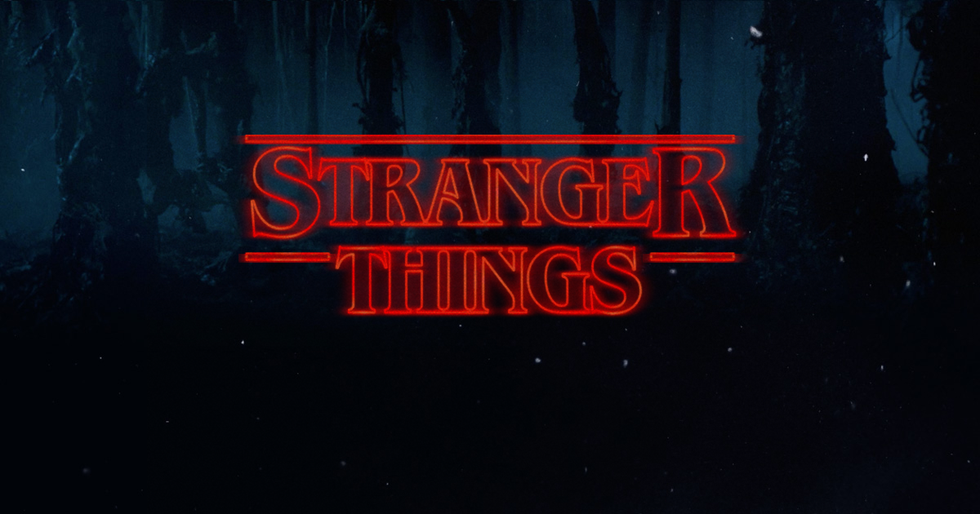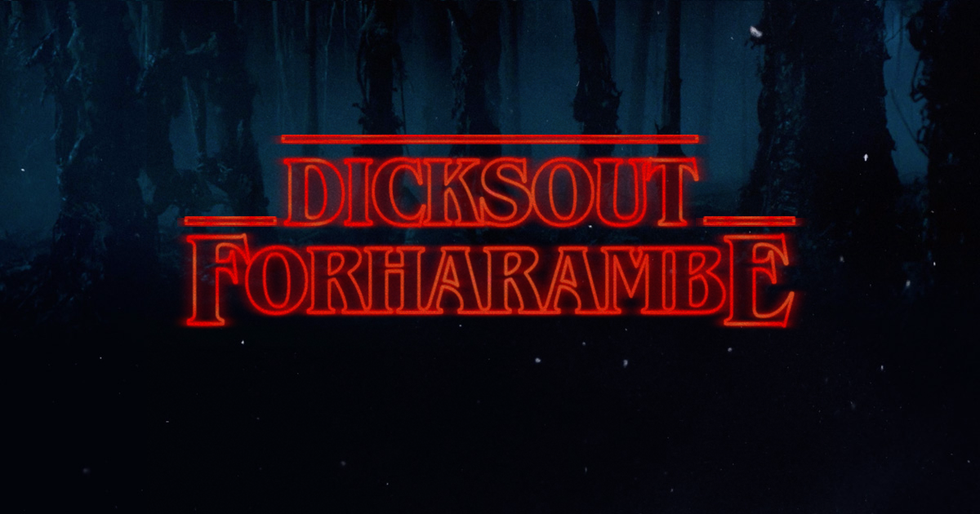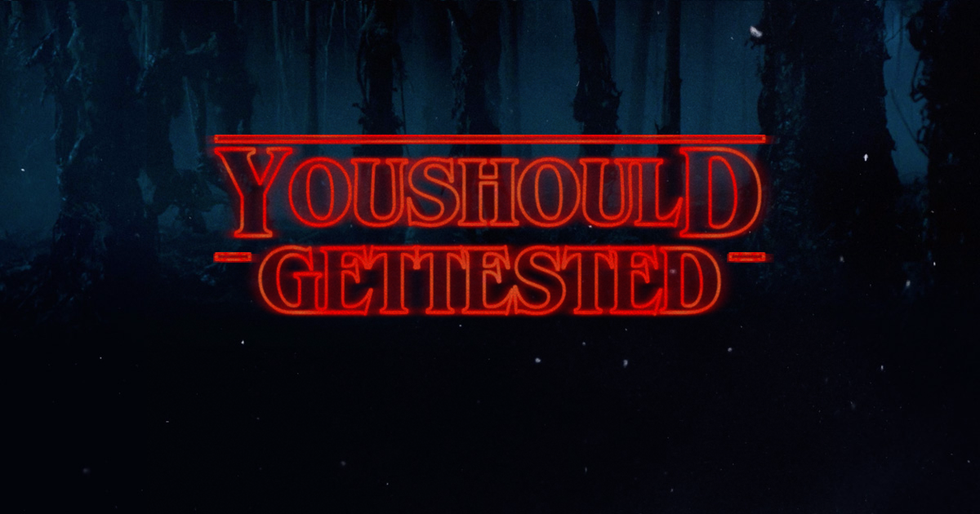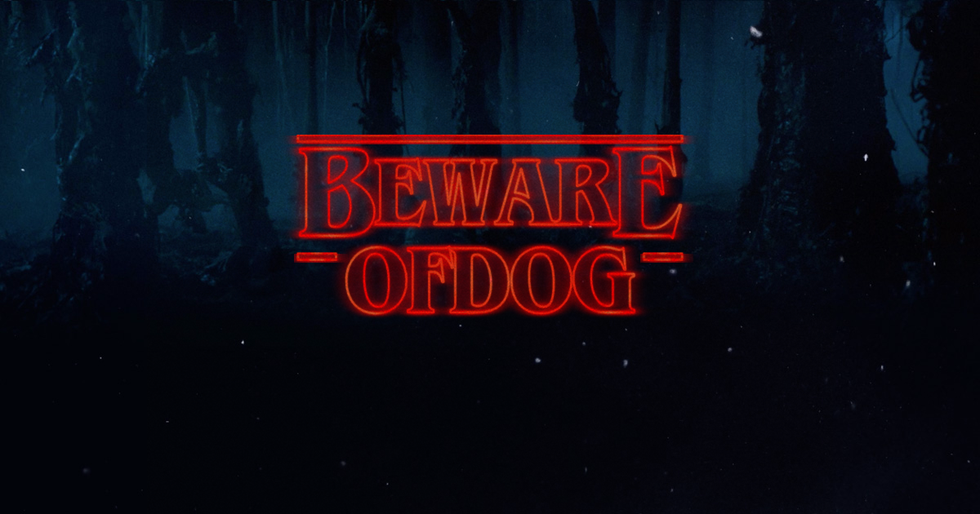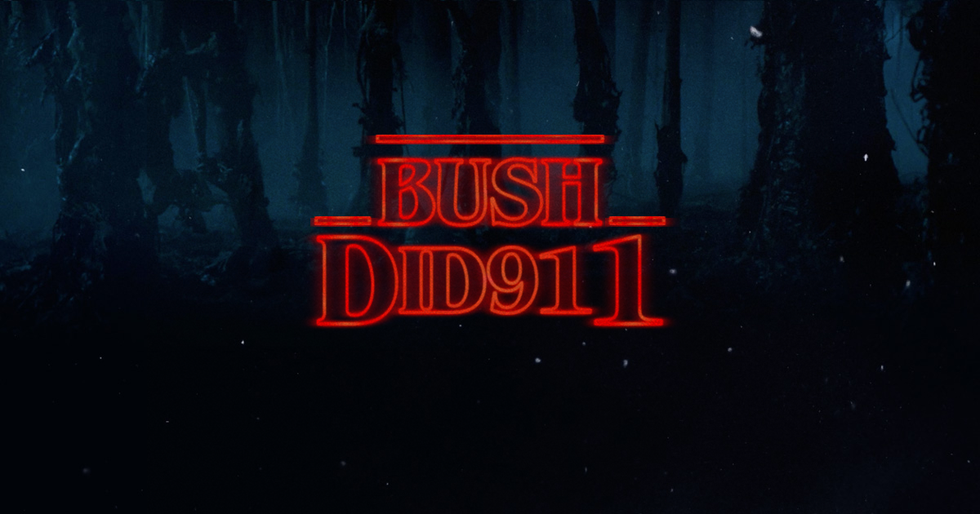
Five Ways to Use "Stranger Things" Font
A great way to kill time!
Make It Stranger
If you're like me, you are a fan of the Netflix original series Stranger Things. It's a show about a quiet little town in Indiana in which a kid goes missing and people start getting murdered. It's a race to find the kid and who has been murdering people. It also starts with a round of D&D, which I thought was a fun and intricate plot point. Well, anyways, there is a website called makeitstranger.com, which purpose is to make any words you want into the Stranger Things title font. I was playing around with it and thought that you viewers would enjoy ways you can have fun with it.
1. Make A Statement
Harambe was the gorilla that was killed at the Cincinnati Zoo when a child fell in. Instead of tranquilizing it, it was shot and killed causing huge uproar across the interwebs. This campaign started after Brandon Wardell tweeted "dick's out for Harambe" and then vining with some celebrities. It was to raise awareness about animal rights.
2. Make An Announcement
Have an STD? Need to tell that special someone that you do? Try using the font. Nothing works better than to tell your husband, boyfriend, casual hook-up buddy, or all three that you have some disease than this.
3. As a Welcome Mat
Because nothing says warm and inviting like red neon!
4. Stating a Fact
5. Or...Your Name...I guess
Yeah, that's fun
Well I hope y'all have as much fun with it as I did!